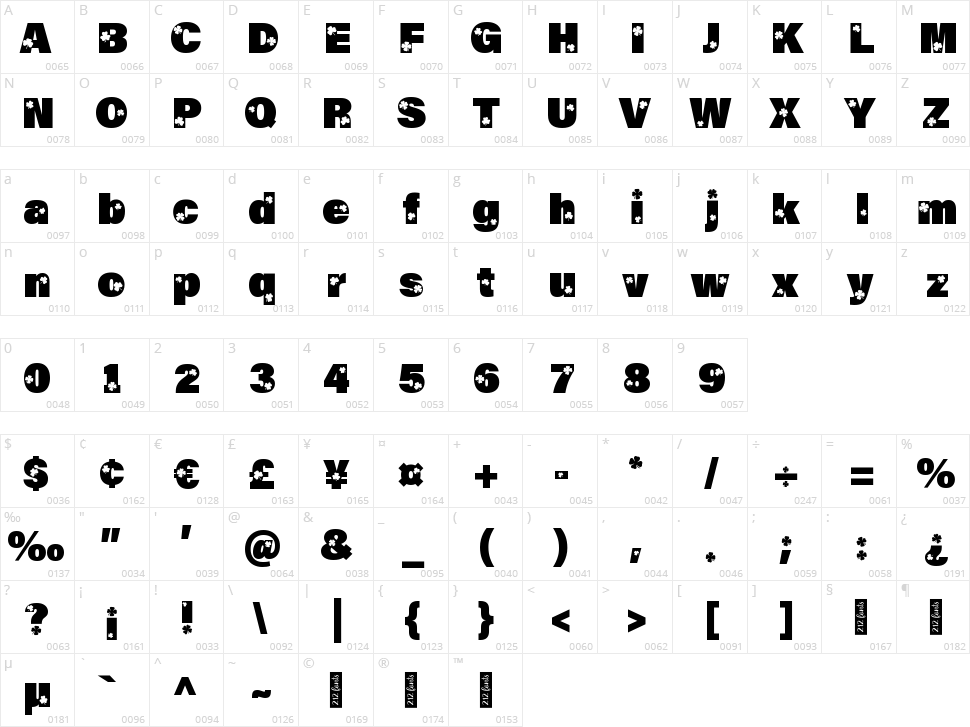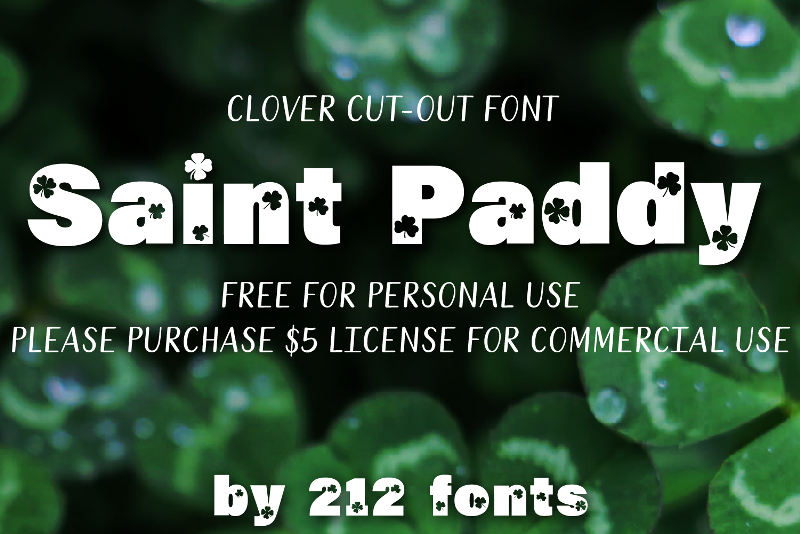
212 Saint Paddy
Saint Paddy is a bold clover cut-out font free for personal use only. Great for St. Patrick's day and Ireland projects! Buy a $5 commercial use license here: